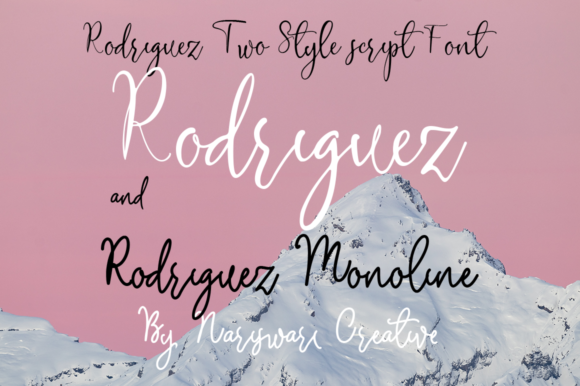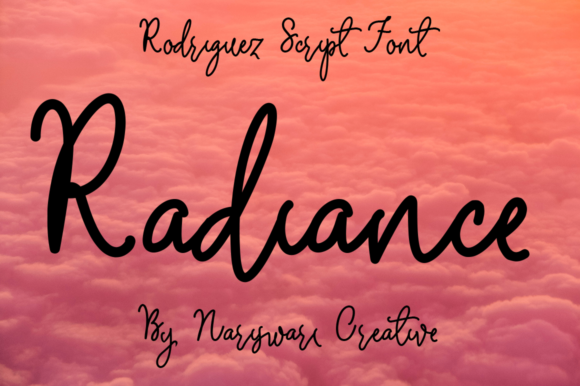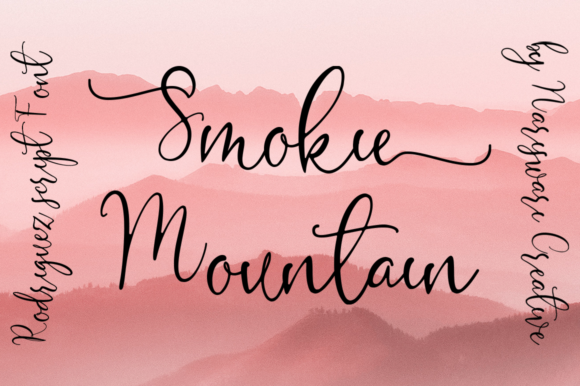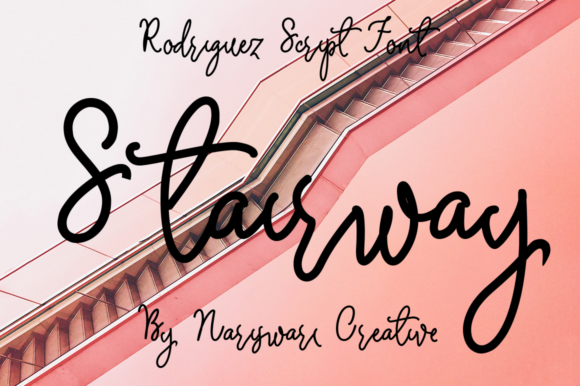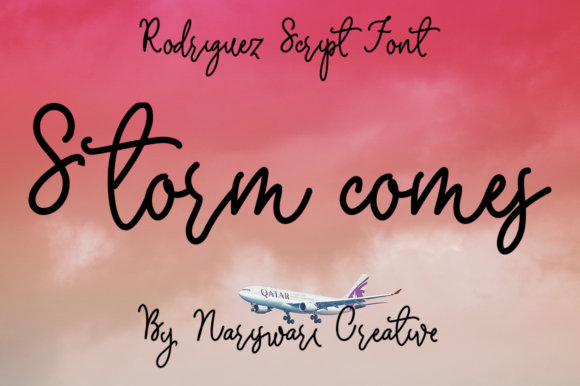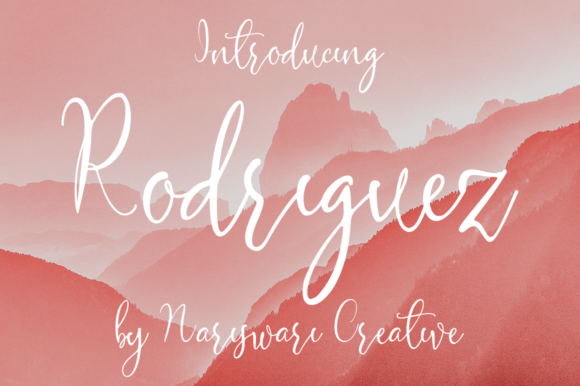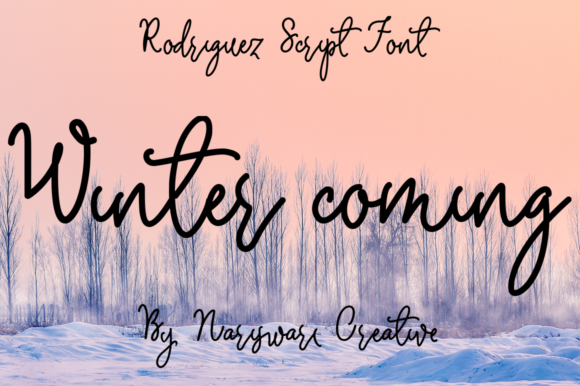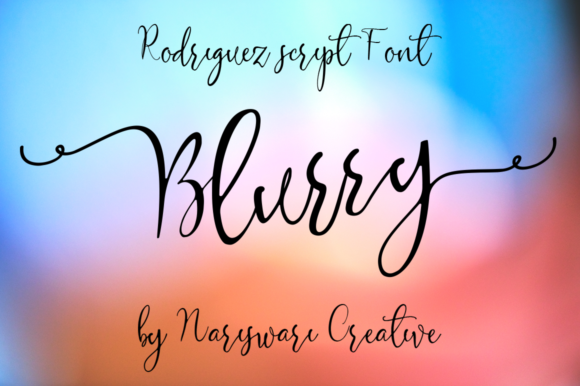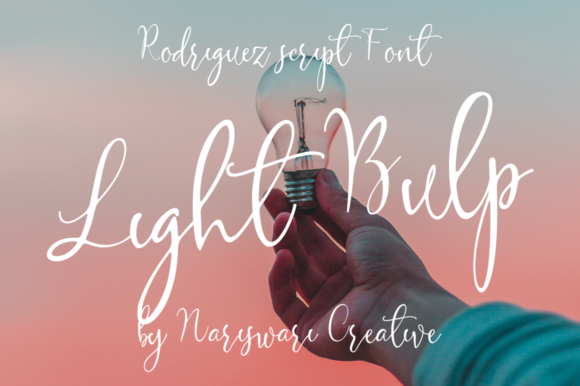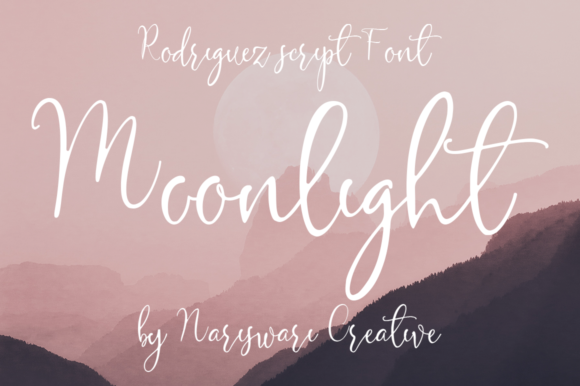
Rodriguez Font
About Rodriguez Font
Rodriguez is an elegant and flowing handwritten font. It is PUA encoded which means you can access all of the glyphs and swashes with ease! It features a varying baseline, smooth lines, gorgeous glyphs and stunning alternates. It maintains its classy calligraphic influences while feeling contemporary and fresh. Fall in love with Rodriguez and bring your projects to the highest levels!